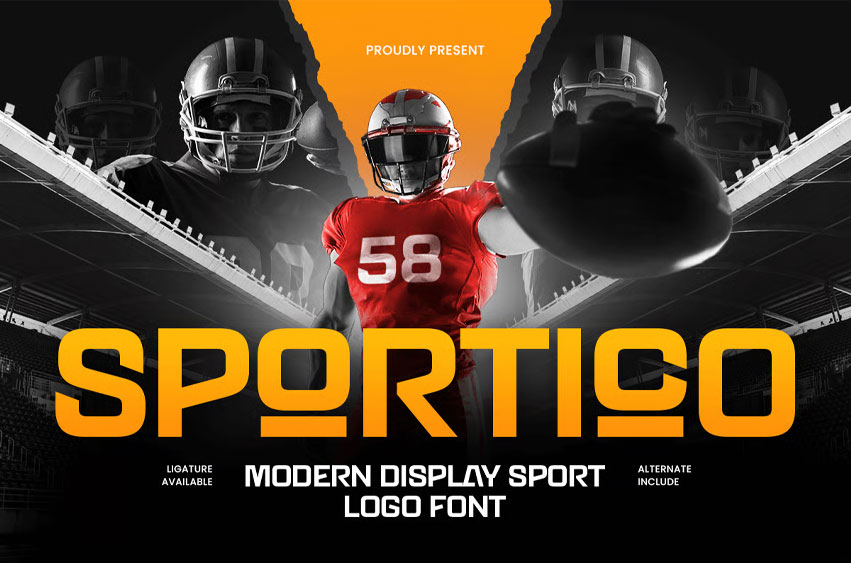
Sportico Font
Sportico Font is a techno sport font built to capture speed, power, and competitive intensity. With sharp techno angles and an athletic structure, this typeface delivers a modern sports identity that feels energetic, confident, and ready for action.
Designed for sports-forward branding, SPORTICO works perfectly across team logos, tournament visuals, number lettering, match posters, event banners, and social media promos. Its bold presence keeps typography highly readable while adding a futuristic edge that fits both traditional sports and esports aesthetics.
Whether you’re creating branding for a tournament, building a team identity, or designing high-impact headlines for sports marketing, SPORTICO brings a strong techno-athletic voice that performs across print and digital layouts.
Inspiration Behind SPORTICO
SPORTICO is inspired by stadium typography, modern sports branding, and futuristic techno design. Built for competitive identity systems, it supports bold team logos, fast event headlines, merch graphics, and esports visuals. The font is crafted to perform across posters, signage, merch, packaging, digital banners, and social media—where speed-driven typography needs to look sharp and powerful.
SPORTICO Font Features
• Techno sport letterforms with bold, energetic presence
• Optimized for team logos, headlines, and event branding
• Strong readability for large display and scoreboard-style layouts
• OpenType features for polished, flexible sports typography
• Sports logos, team branding, and athletic identities
• Tournament posters, match graphics, and event campaigns
• Merch, event media, flyer, and sports packaging
• Esports teams, gaming events, and streamer visuals
• Social media promos, banners, and high-energy ads
Boost your team identity with SPORTICO—crafted for techno sport impact and winning energy.